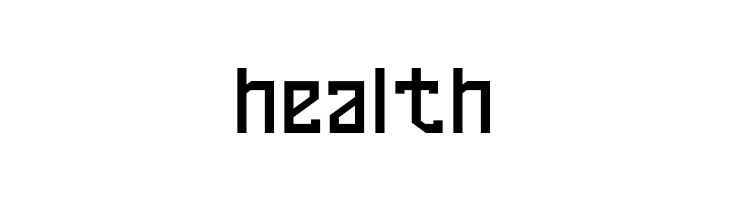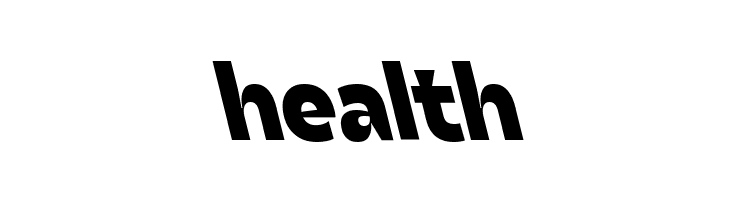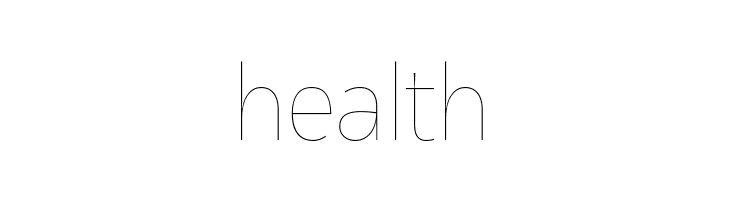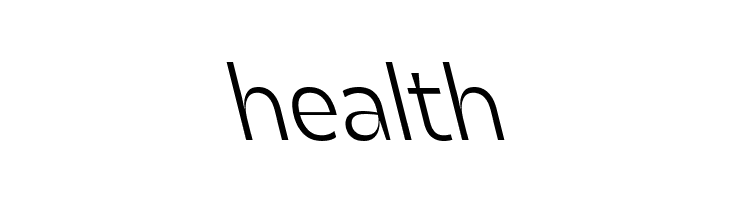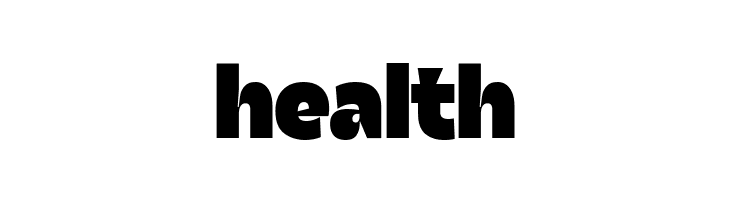
• Assasin Aerox
A geometric, angular font with a bold, futuristic style.
• Ashemark Regular
A sleek, modern font with elongated, condensed characters.
• Asgard Trial Xbold Italic
A bold, italic font with a dynamic and modern style.
• Asgard Trial Xlight
A sleek, modern font with clean lines and a minimalist aesthetic.
• Asgard Trial Xbold Backslant
A bold, backslanted font with a strong, modern appearance.
• Asgard Trial Thin
A modern, minimalist font with thin, clean lines and balanced spacing.
• Asgard Trial Light
A modern, light sans-serif font with clean lines and excellent readability.
• Asgard Trial Light Backslant
A modern, light, backslant sans-serif font with a sleek and dynamic style.
• Asgard Trial Fat
A bold, modern font with thick strokes and strong geometric shapes.
• Asgard Trial Regular
A modern sans-serif font with clean lines and balanced proportions.